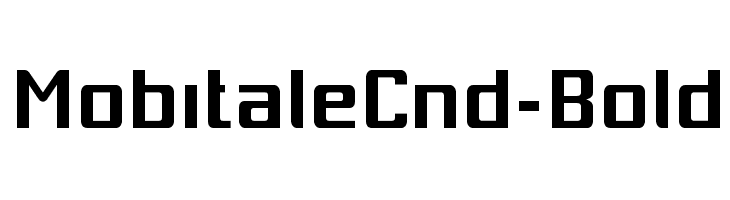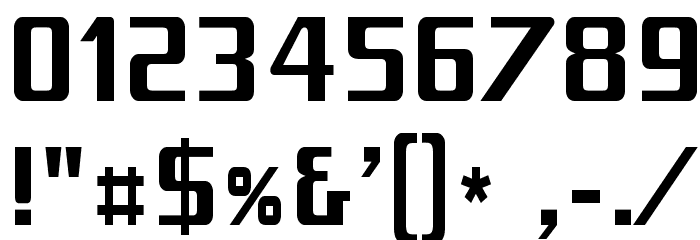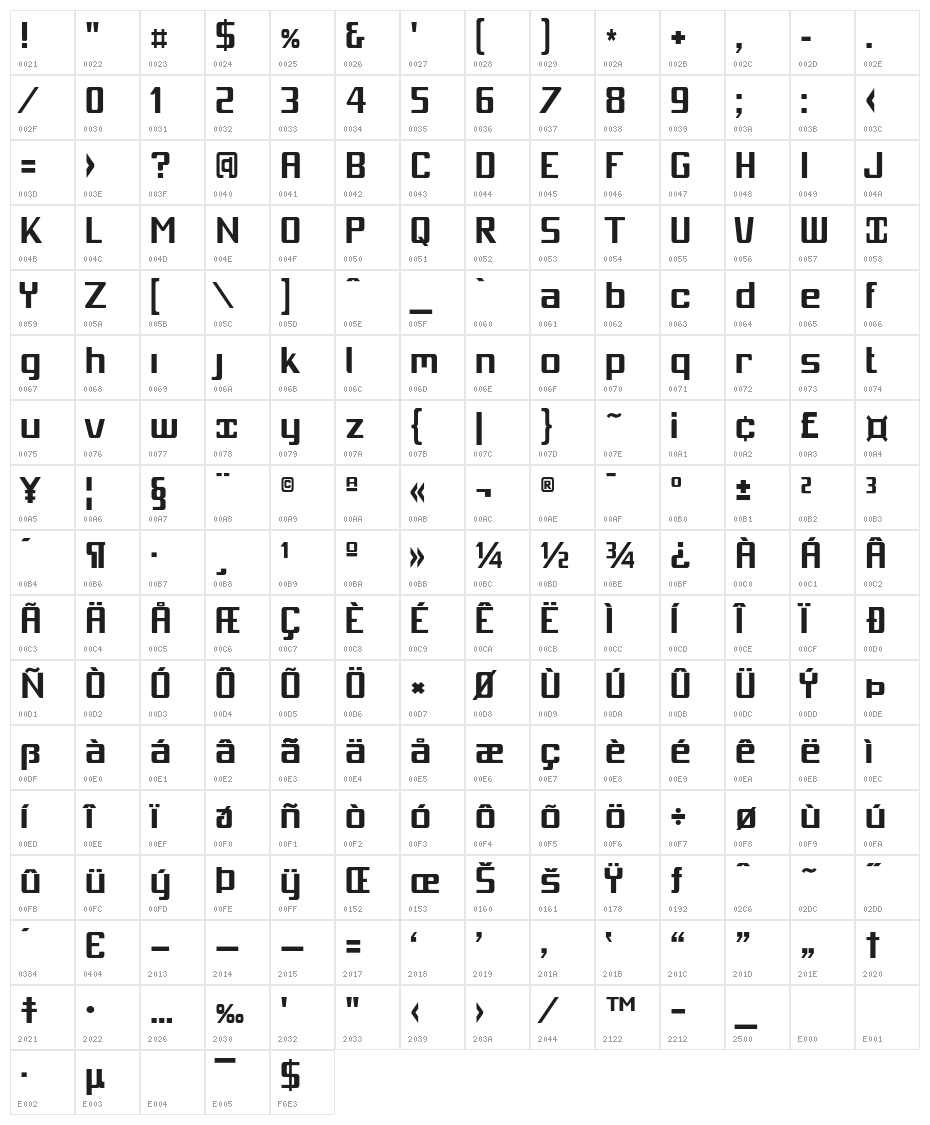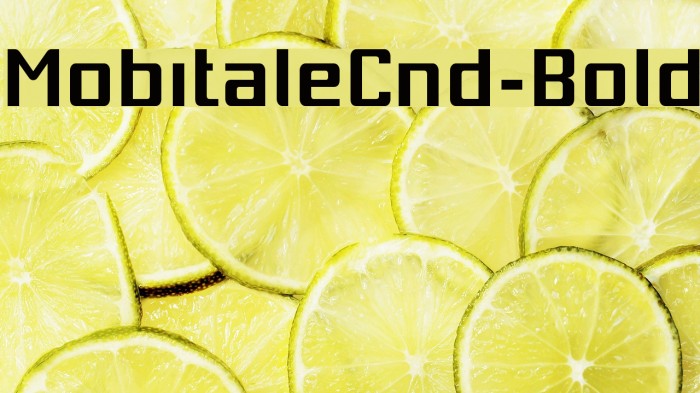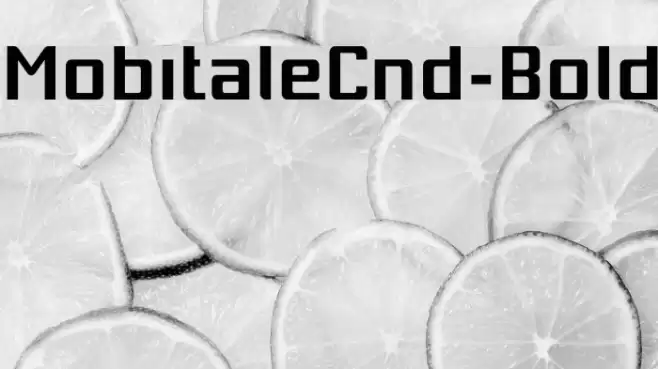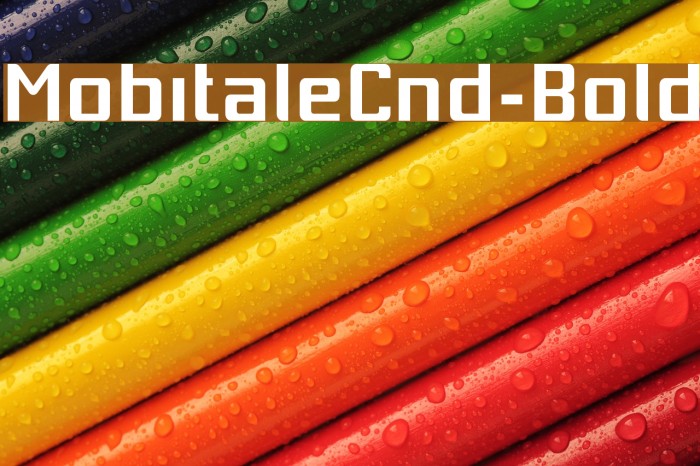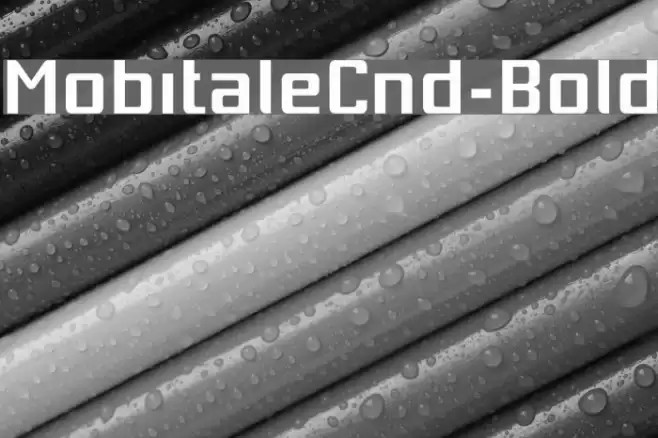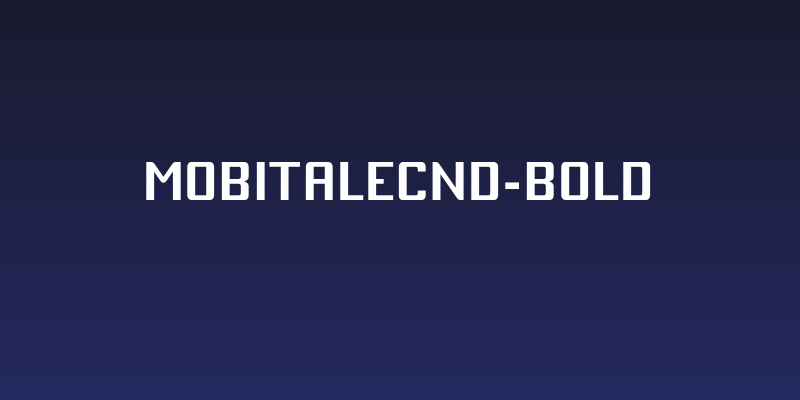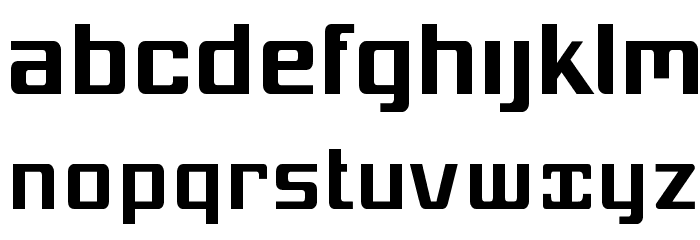
MobitaleCnd-Bold Font
MobitaleCnd-Bold Description
This font features a bold and modern design with a condensed structure, making it ideal for impactful headlines and attention-grabbing displays. The characters are uniformly thick, providing a strong presence on the page. The uppercase and lowercase letters maintain a consistent height, enhancing readability and creating a cohesive look. The numerals and special characters are designed with the same boldness, ensuring they stand out equally. The overall style is geometric, with sharp angles and clean lines, giving it a contemporary and professional appearance.